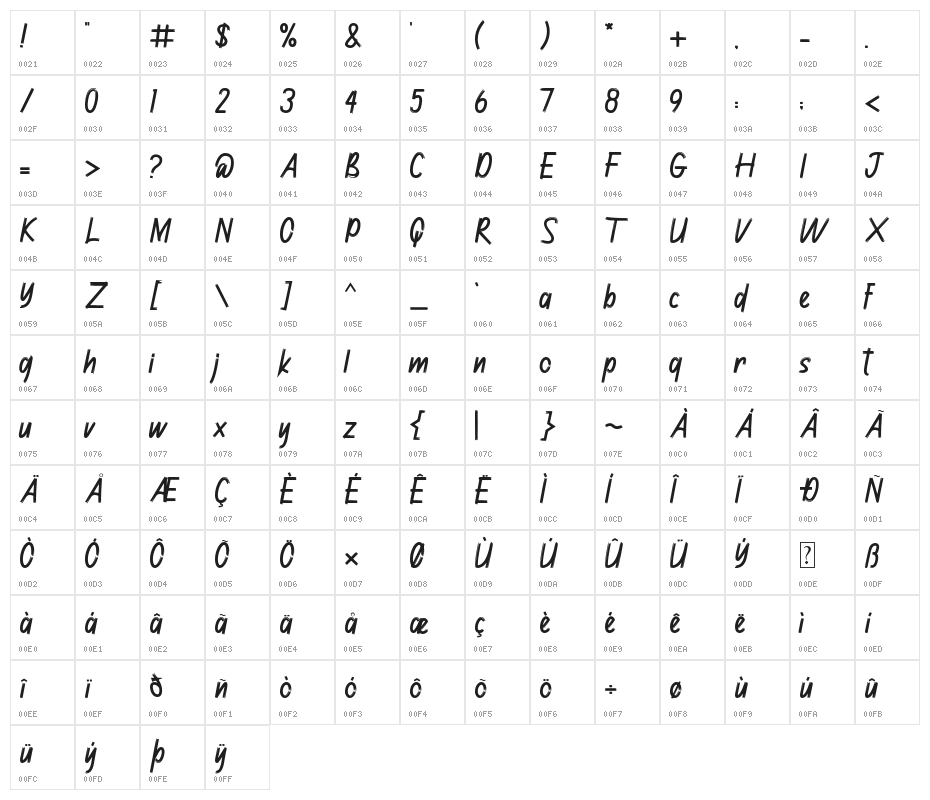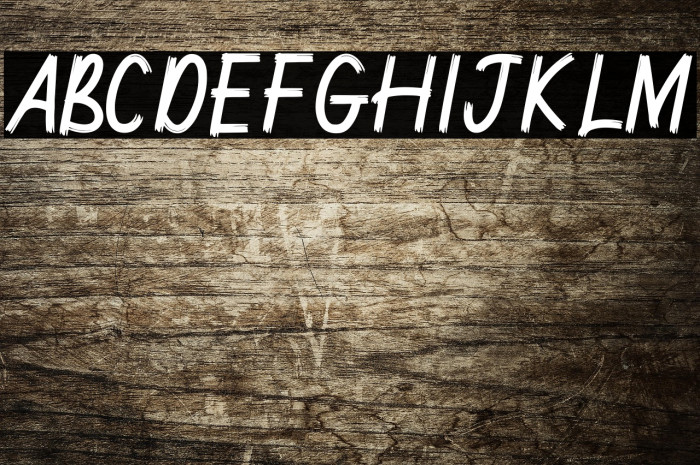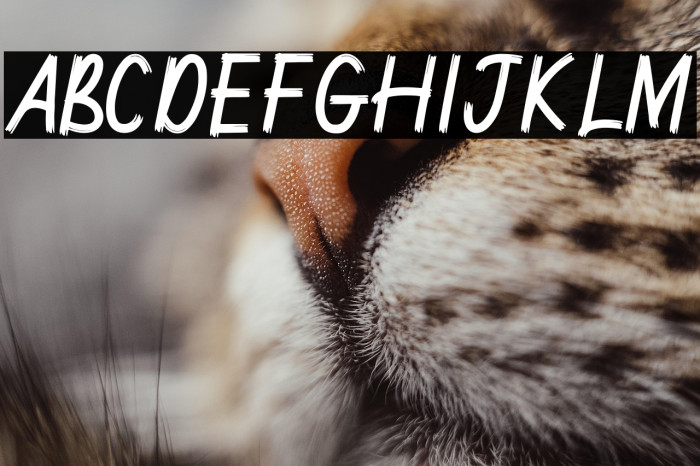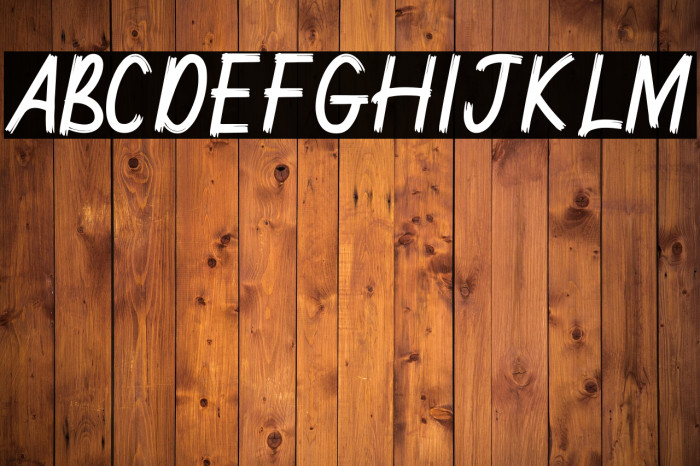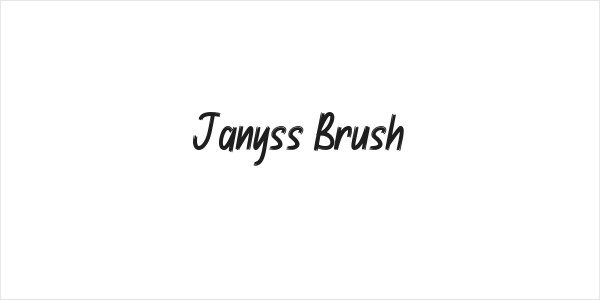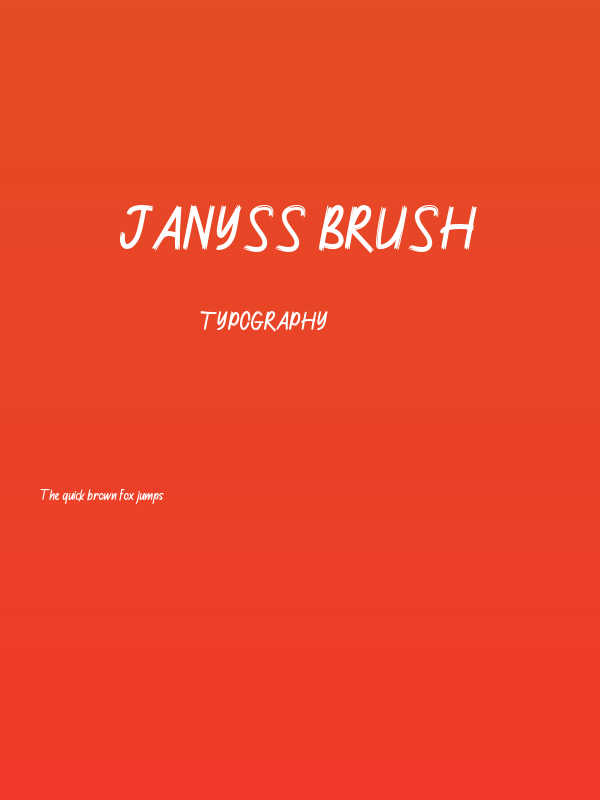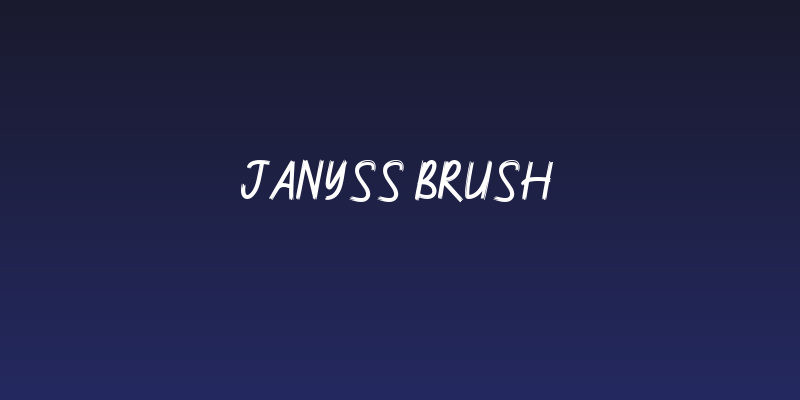
Janyss Brush Font
Janyss Brush Description
This font features a dynamic and expressive brush style, characterized by its bold and energetic strokes. The letters have a hand-painted appearance, with varying thickness that adds a sense of movement and fluidity. The uppercase and lowercase letters maintain a consistent style, with slightly exaggerated curves and angles that enhance its artistic flair. The numbers and special characters follow the same brush-like aesthetic, making it suitable for creative and informal designs. Its unique style is perfect for projects that require a personal touch or a sense of spontaneity.